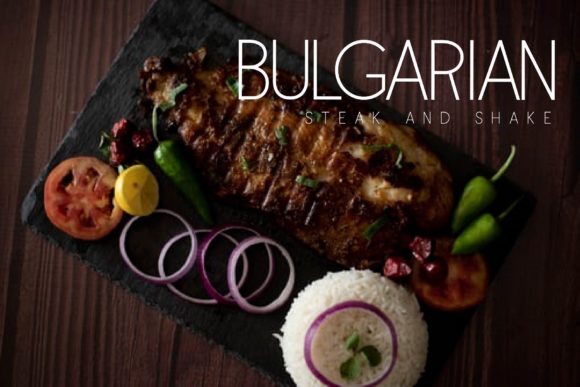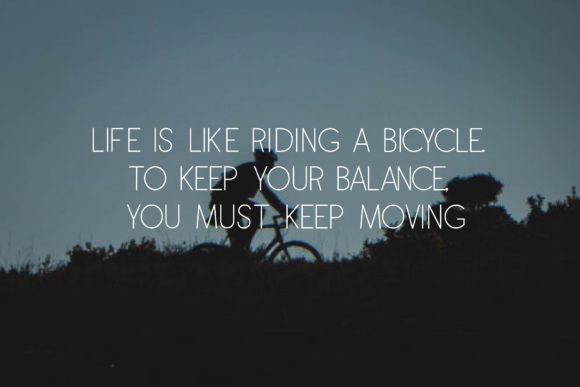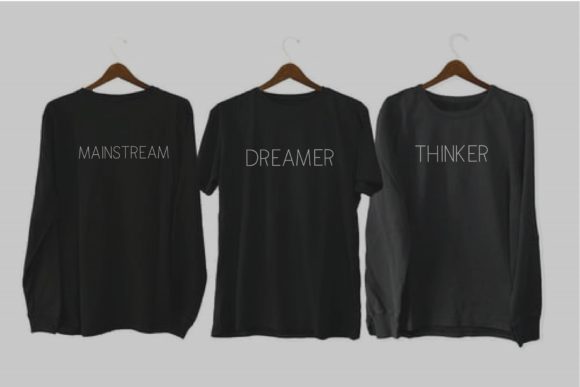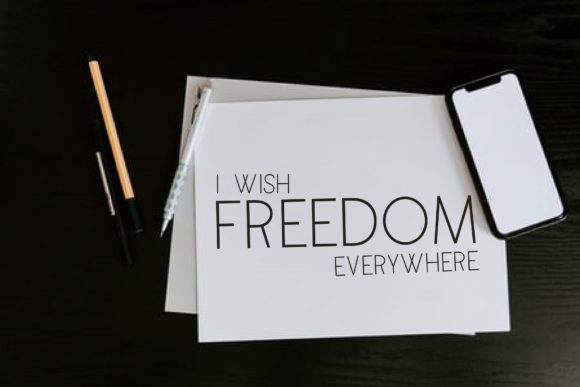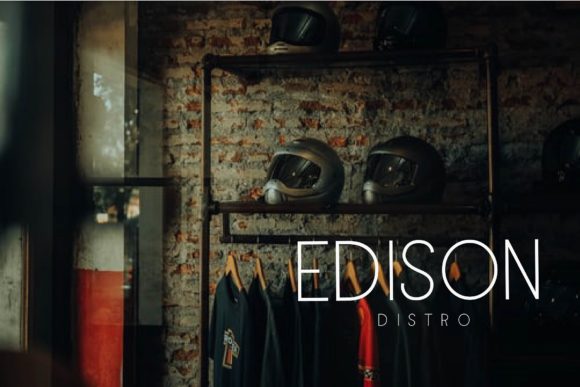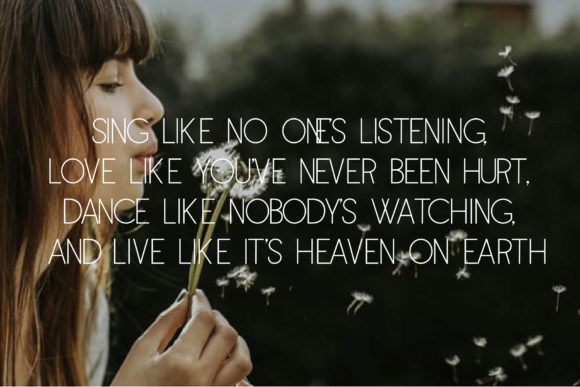
Introducing Evra Font: The Ultimate Display Font for Creative Projects
Are you a designer, crafter, or creative enthusiast looking for a font that can elevate your projects to the next level? Look no further than Evra Font, a cool and versatile display font perfect for a wide range of applications. From branding and product packaging to invitations, quotes, T-shirts, labels, posters, logos, and more, Evra Font is the ideal choice for anyone seeking to add a touch of sophistication and style to their work.
What Makes Evra Font So Special?
Evra Font is a meticulously crafted display font designed to make your creative projects stand out from the crowd. Its unique and stylish design ensures that your work will be more attractive and outstanding, grabbing the attention of your audience and leaving a lasting impression. Whether you’re working on a personal project or a client’s commission, Evra Font is the perfect tool to help you achieve your design goals.
Endless Possibilities with Evra Font
One of the best things about Evra Font is its incredible versatility. This amazing font can be used in a multitude of ways, including:
- Branding: Create a lasting impression with your brand’s identity using Evra Font for logos, business cards, and marketing materials.
- Product Packaging: Make your products stand out on store shelves with eye-catching labels and packaging featuring Evra Font.
- Invitations: Design beautiful and elegant invitations for special occasions, such as weddings, birthdays, and anniversaries.
- Quotes and Posters: Create inspiring and thought-provoking quotes and posters that showcase your message in a stylish and impactful way.
- T-Shirts and Apparel: Design unique and fashionable T-shirts, hoodies, and other apparel items using Evra Font.
- Labels and Stickers: Add a personal touch to your labels and stickers with Evra Font, perfect for gifts, products, or organization.
- Logos and Icons: Use Evra Font to create custom logos and icons for your business, website, or social media profiles.
Why Choose Evra Font?
With so many fonts available, why should you choose Evra Font for your creative projects? Here are just a few compelling reasons:
- Unique Design: Evra Font boasts a distinctive and stylish design that sets it apart from other fonts.
- High-Quality: This font is crafted with precision and attention to detail, ensuring a high-quality finish in every project.
- Easy to Read: Despite its stylish design, Evra Font remains easy to read, making it perfect for a wide range of applications.
- Versatile: As mentioned earlier, Evra Font can be used in countless ways, making it a valuable addition to any designer’s toolkit.
In conclusion, Evra Font is an exceptional display font that can elevate your creative projects to new heights. Its unique design, versatility, and high-quality finish make it the perfect choice for designers, crafters, and creative enthusiasts alike. Whether you’re working on a personal project or a client’s commission, Evra Font is sure to make your work more attractive and outstanding. So why wait? Download Evra Font today and start creating stunning designs that leave a lasting impression!